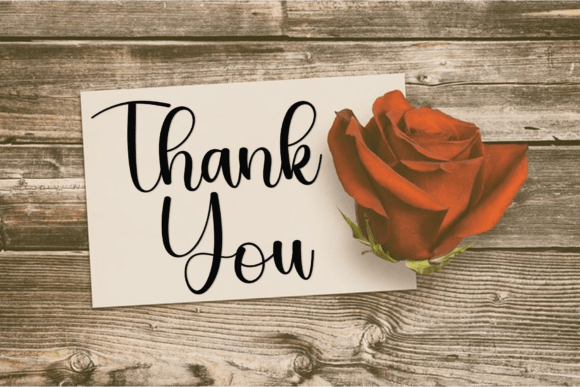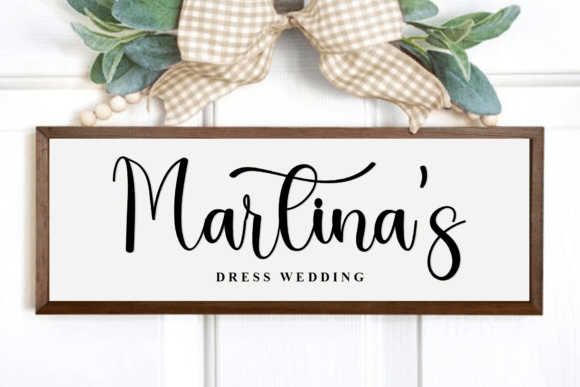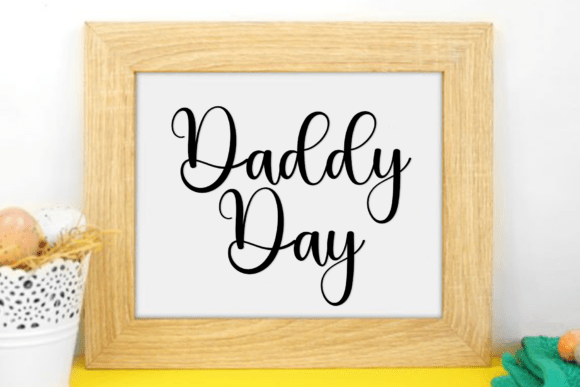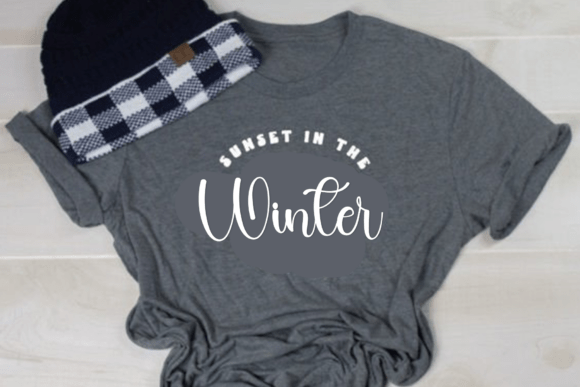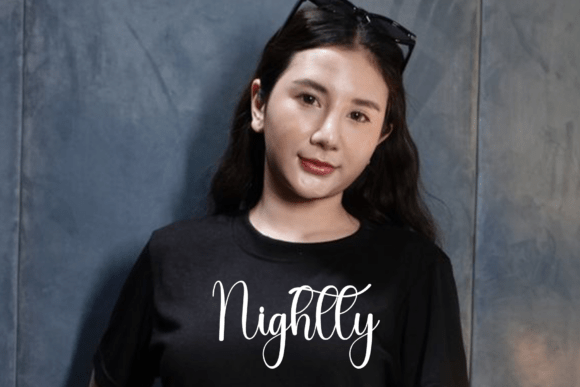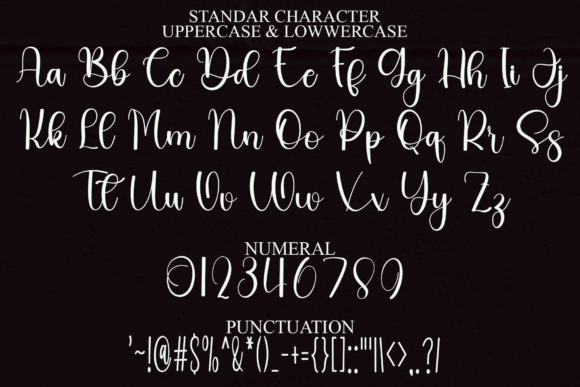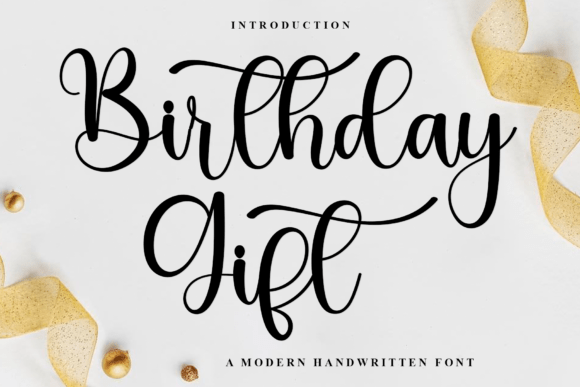
Introducing Birthday Gift Font: The Ultimate Holiday Typeface
The holiday season is upon us, and what better way to get into the spirit than with a festive and merry typeface? Look no further than the Birthday Gift Font, a decorative font that captures the essence of the holiday season with its whimsical flair and enchanting charm. In this article, we’ll dive into the world of Birthday Gift Font, exploring its features, benefits, and uses, and why it’s the perfect addition to your typography collection.
Birthday Gift Font is a beautifully crafted typeface that embodies the joy and magic of the holiday season. Its decorative elements and whimsical design make it perfect for adding a touch of enchantment to your designs. Whether you’re creating greeting cards, gift tags, or holiday-themed projects, this font brings a cheerful and nostalgic ambiance to your words. With Birthday Gift Font, you can add a dash of festive flair to your typography and make your designs shine.
Birthday Gift Font is a dream come true for designers and crafters looking to add a personal touch to their projects. With its PUA encoding, you can access all of the amazing glyphs and ligatures with ease, making it simple to create stunning and unique designs. Whether you’re a professional designer or a crafty hobbyist, this font is perfect for anyone looking to add a touch of magic to their work.
Key Features of Birthday Gift Font
- Decorative Elements: Birthday Gift Font features beautiful decorative elements that add a touch of whimsy and enchantment to your designs.
- PUA Encoding: With PUA encoding, you can access all of the amazing glyphs and ligatures with ease, making it simple to create stunning and unique designs.
- Festive and Merry: This font is perfect for the holiday season, capturing the spirit of joy and celebration.
- Versatile: Birthday Gift Font is perfect for a variety of projects, including greeting cards, gift tags, holiday-themed projects, and more.
Uses for Birthday Gift Font
So, what can you use Birthday Gift Font for? The possibilities are endless! Here are a few ideas to get you started:
- Greeting Cards: Add a touch of festive flair to your holiday greeting cards with Birthday Gift Font.
- Gift Tags: Create beautiful and unique gift tags with this enchanting font.
- Holiday-themed Projects: Perfect for holiday-themed projects, such as Christmas, Hanukkah, or New Year’s Eve celebrations.
- Social Media Graphics: Add a touch of festive magic to your social media graphics with Birthday Gift Font.
Why Choose Birthday Gift Font?
So, why choose Birthday Gift Font over other typefaces? Here are just a few reasons:
- Unique and Eye-catching: This font is sure to grab attention with its unique and eye-catching design.
- Easy to Use: With PUA encoding, you can access all of the amazing glyphs and ligatures with ease.
- High-quality: Birthday Gift Font is a high-quality typeface, carefully crafted to ensure a professional finish.
In conclusion, Birthday Gift Font is a must-have typeface for designers and crafters looking to add a touch of festive magic to their projects. With its decorative elements, whimsical flair, and PUA encoding, this font is perfect for creating stunning and unique designs. Whether you’re creating greeting cards, gift tags, or holiday-themed projects, Birthday Gift Font is the perfect addition to your typography collection. So why wait? Get your hands on Birthday Gift Font today and let your typography shine with the magic of Beautiful Font!